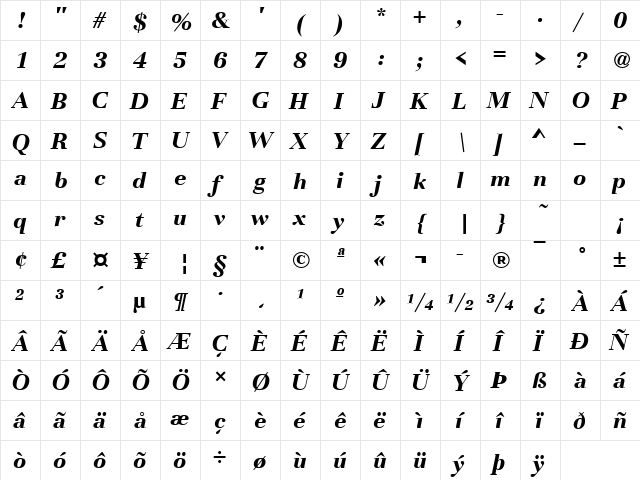
BasiliaT Bold Italic
Design Context for BasiliaT Typeface
BasiliaT offers clean, dependable letterforms without strong stylistic allegiance, making it a practical choice for designers who need flexibility. Its italic angle brings a sense of urgency and motion to the letterforms. The heavy weight commands attention and anchors typographic hierarchies.
Pro Tip: Use BasiliaT for emphasis, pull quotes, and subheadings where its slanted energy can add rhythm to the layout.